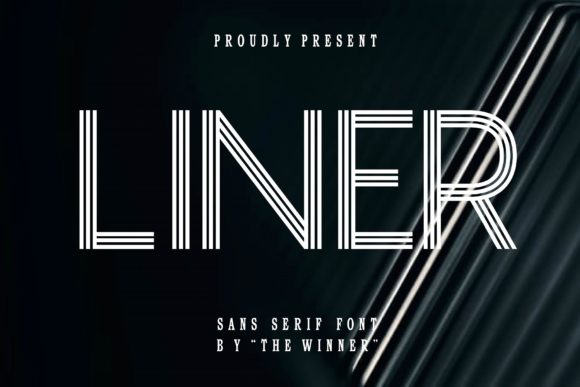
Introducing Liner, the ultimate striped sans serif font that will revolutionize your design projects. Created by The1stWinner, this font is not just your ordinary typeface, it is a captivating work of art that is specifically crafted to elevate your designs and captivate your audience.
Liner is the perfect choice for anyone looking to add a touch of elegance and sophistication to their branding, product packaging, invitations, quotes, t-shirts, labels, posters, and logos. With its unique striped design, this font effortlessly captures attention and creates a memorable visual impact.
Imagine the possibilities with Liner. Whether you are designing a wedding sign, a chic logo for your business, or a trendy t-shirt, this font will make your creations stand out from the crowd. Its sleek and modern style exudes class and professionalism, making it a versatile choice for any design project.
But Liner is more than just a font; it is a gateway to creativity and expression. Its eye-catching appeal will evoke emotions, leaving a lasting impression on your audience. From elegant wedding invitations to bold and impactful posters, this font will elevate your designs to new heights.
With Liner, you have the power to create a visual masterpiece that will leave everyone in awe. Its clean lines and impeccable craftsmanship make it a must-have for designers, marketers, and creatives alike. So why settle for ordinary when you can embrace the extraordinary?